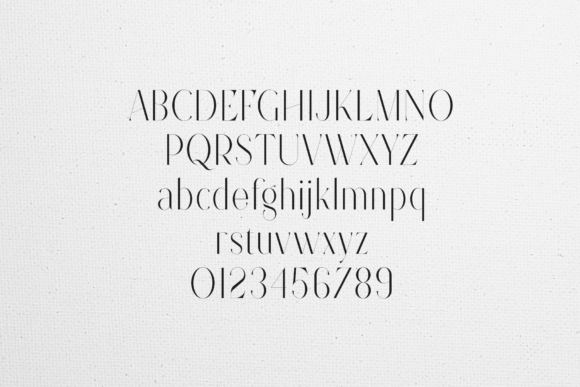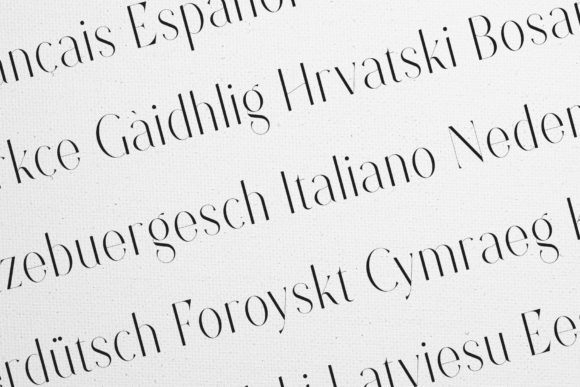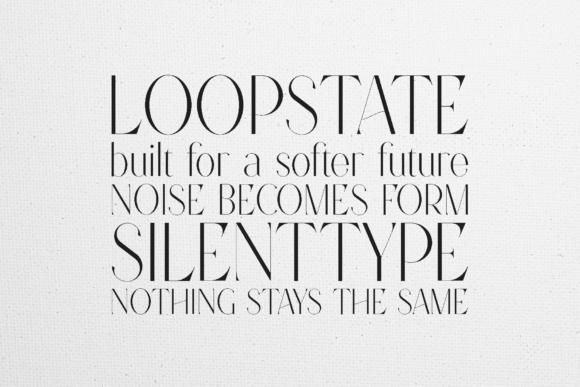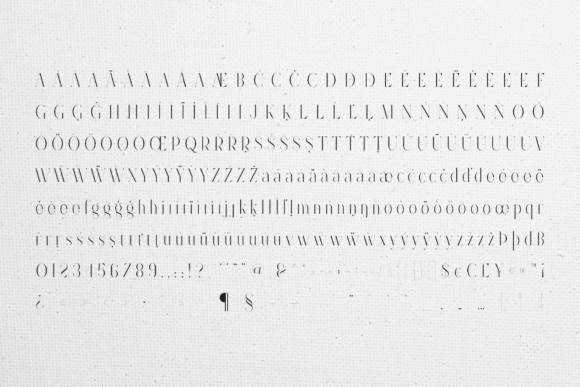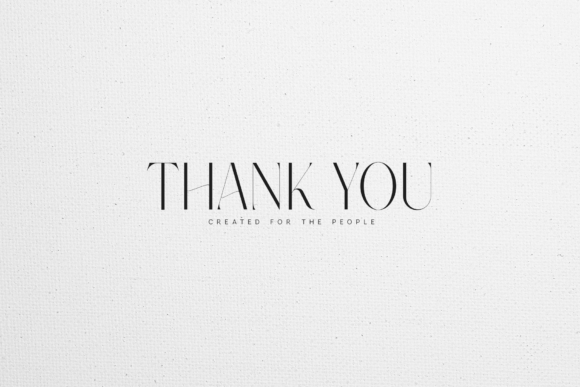
Introducing Future Flow: The Modern Serif Typeface for Elegant Expression
In the ever-evolving world of typography, a new font has emerged that embodies the perfect blend of modernity and elegance. Meet Future Flow, a refined modern serif typeface designed to bring clarity, sophistication, and contemporary expression to various design applications. This versatile font is poised to revolutionize the way designers and crafters approach branding, fashion design, magazines, luxury editorials, posters, packaging, and visual identities.
A Timeless Aesthetic
Future Flow seamlessly blends sharp editorial contrast with soft organic curves, creating a timeless aesthetic that feels both modern and human. This harmonious balance makes it an ideal choice for designers seeking to create visually stunning and effective typography. The font’s elegant proportions and high contrast strokes evoke a sense of luxury and sophistication, perfect for high-end branding and editorial projects.
Key Features of Future Flow
• Modern serif design: A fresh take on traditional serif typography, perfect for contemporary design applications.
• Elegant proportions: Carefully crafted to ensure optimal readability and aesthetic appeal.
• High contrast strokes: Adding depth and sophistication to the font’s overall appearance.
• Uppercase and lowercase characters: Providing flexibility and versatility in typography.
• Numerals and punctuation included: Ensuring that designers have all the necessary characters for effective typography.
• Accented characters and multilingual support: Catering to a diverse range of languages and design requirements.
• Print-ready and web-ready: Optimized for both print and digital applications.
• Branding-friendly and editorial-focused: Designed specifically for branding, fashion design, magazines, luxury editorials, and sophisticated visual identities.
Ideal Applications for Future Flow
Future Flow’s versatility and elegance make it an excellent choice for a wide range of design applications, including:
• Brand identities: Create a lasting impression with a sophisticated and modern typeface.
• Logotypes: Craft unique and memorable logos that exude luxury and elegance.
• Fashion design: Add a touch of sophistication to fashion branding, editorials, and packaging.
• Magazines and luxury editorials: Elevate the reading experience with a refined and elegant typeface.
• Posters and packaging: Make a statement with a bold and eye-catching font.
Transforming Typography into Atmosphere
Future Flow is more than just a typeface – it’s an experience. With its carefully crafted details and extensive multilingual support, this font has the power to transform typography into atmosphere. It’s where noise becomes form and silence finds structure. By using Future Flow, designers can create a lasting impression on their audience and elevate their design work to new heights.
In conclusion, Future Flow is a game-changing modern serif typeface that offers a unique blend of elegance, clarity, and contemporary expression. Its versatility, sophistication, and extensive feature set make it an ideal choice for designers and crafters seeking to create stunning typography for various design applications. With Future Flow, the possibilities are endless, and the future of typography has never looked brighter.